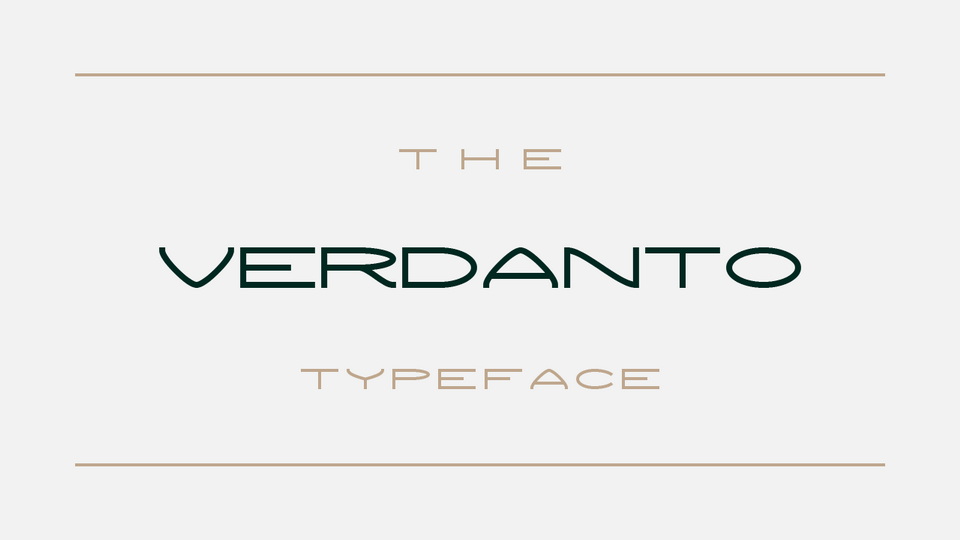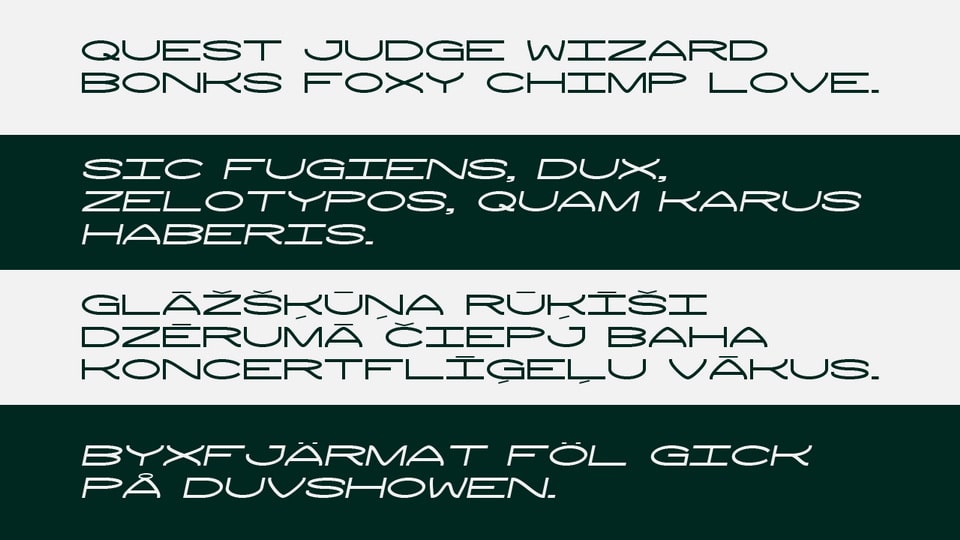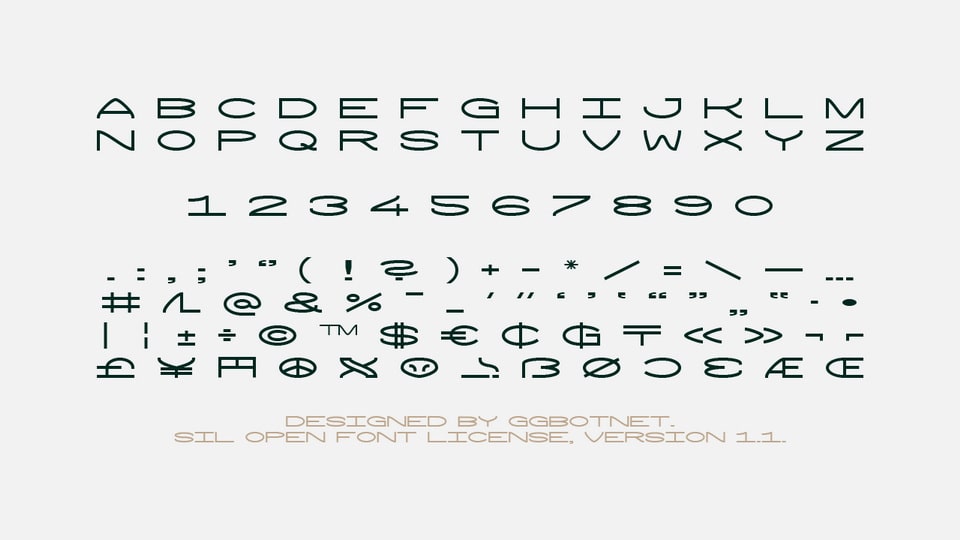
Verdanto
Verdanto is a futuristic sans serif display font with wide, rounded letterforms and a low-contrast monoline build. Its characters use open counters, flattened curves, and extended horizontal strokes, giving the alphabet a clean sci-fi rhythm without heavy ornament. The shapes feel geometric but slightly softened by rounded corners and smooth terminals. Verdanto suits technology titles, game interfaces, science-fiction posters, music artwork, logos, and other display settings that need a precise, streamlined typographic tone.